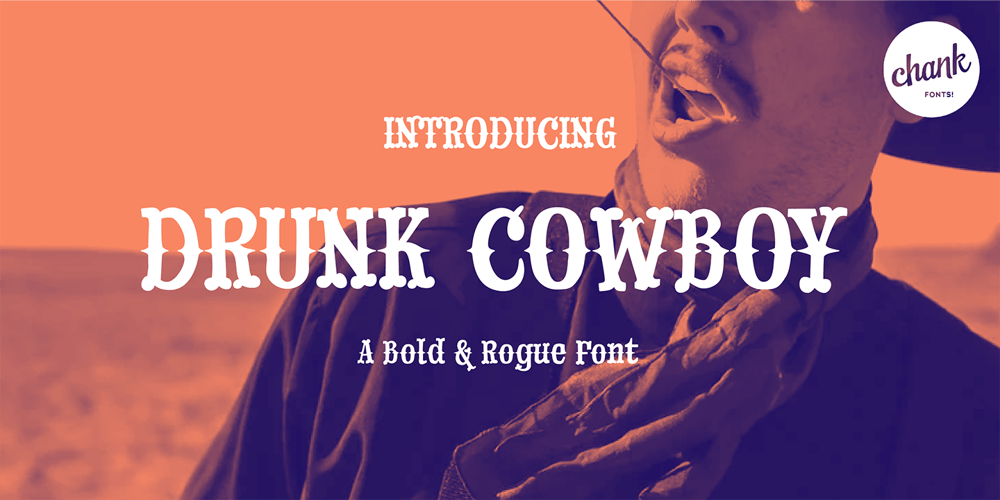
Drunk Cowboy
Drunk Cowboy font
Drunk Cowboy Font Family was designed by Chank Diesel and published by Chank. Drunk Cowboy contains 1 styles and family package options. Drunk Cowboy is a bouncy version of the popular Old West type style, inspired by hand-made signage in Paducah, Kentucky. The strokes are loopy and loose. The exaggerated terminals give this font a loud, boisterous presence. Drunk Cowboy is a brutish rogue that emanates the fierce independence of Rio as played by Marlon Brando in One Eyed Jacks, but it is most like Paul Newman’s Butch Cassidy—a mischievous wise-cracker. And there’s gold worth mining for in this font. Dig deep enough and you’ll find swash characters and special ligatures, like Th, ST, CT, NT and other popular letter combinations found in the Cowboy dialect.